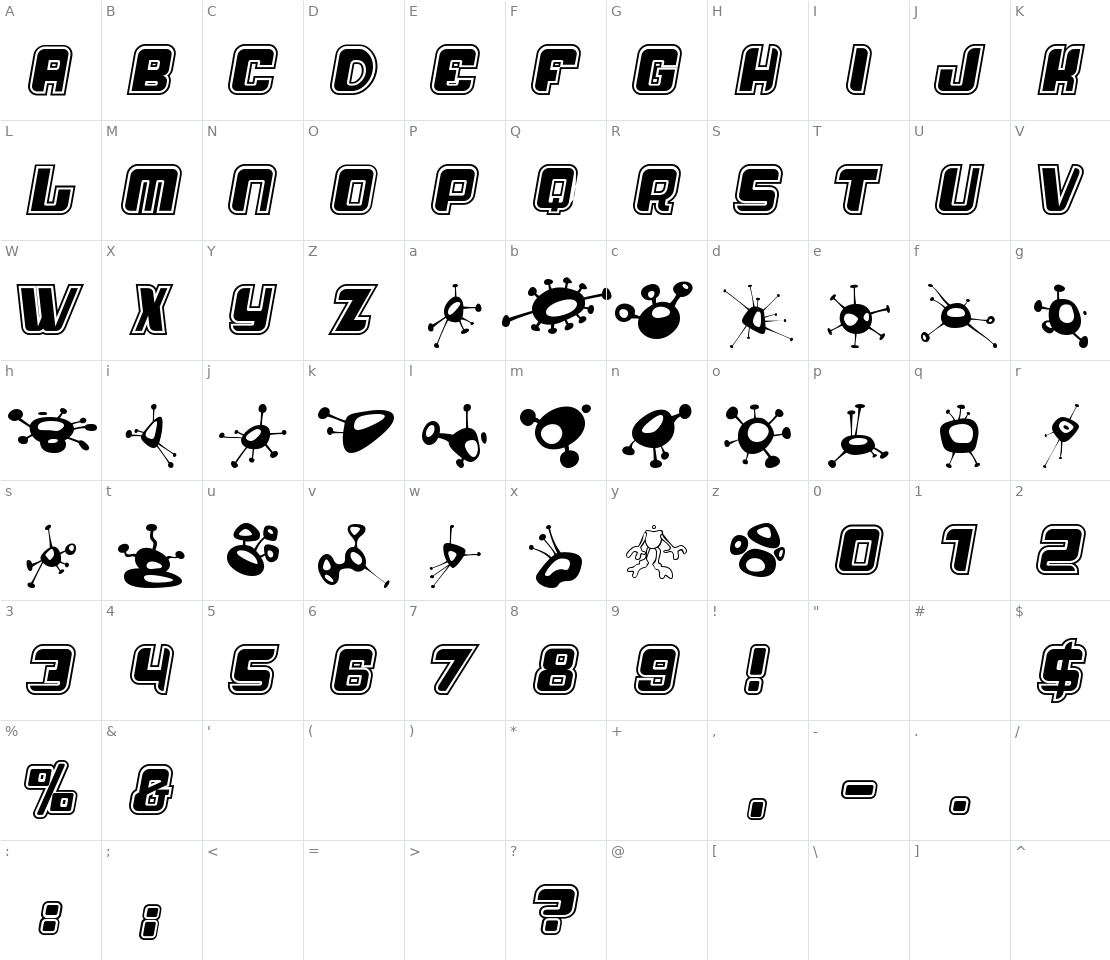
Alien Mushrooms
by Marcel Zellweger
Alien Mushrooms is a novelty symbol font by Marcel Zellweger filled with abstract, organic shapes that look like strange fungi from another planet. The glyphs are playful and deliberately weird, more illustration than alphabet, leaning into a sci-fi curiosity that works for decorative borders, pattern fills, or adding odd alien texture to posters and creative projects.